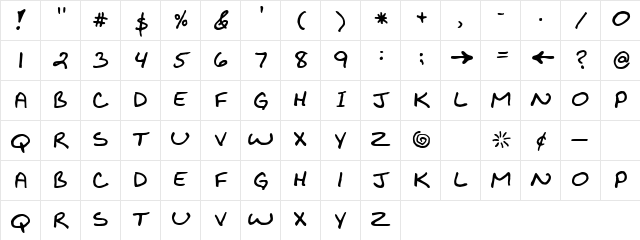
Chakadama Regular
Designer: JupiterImages
Design Context for Chakadama
Chakadama is a composed and adaptable typeface that performs quietly and consistently across a wide range of design contexts.